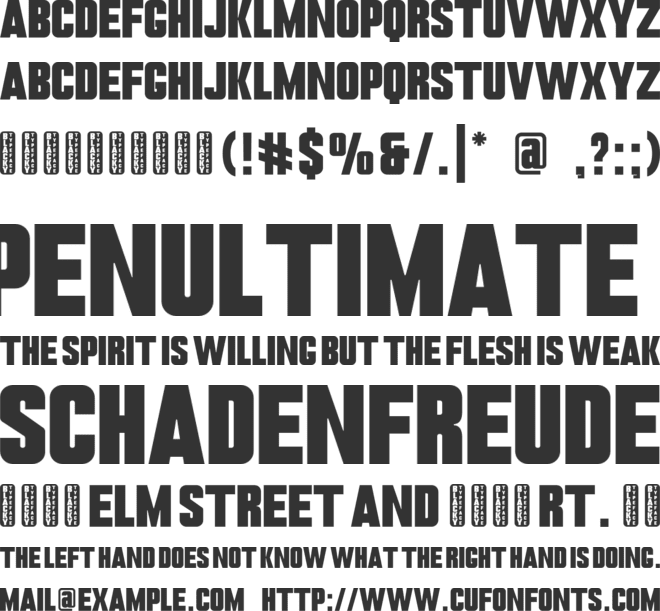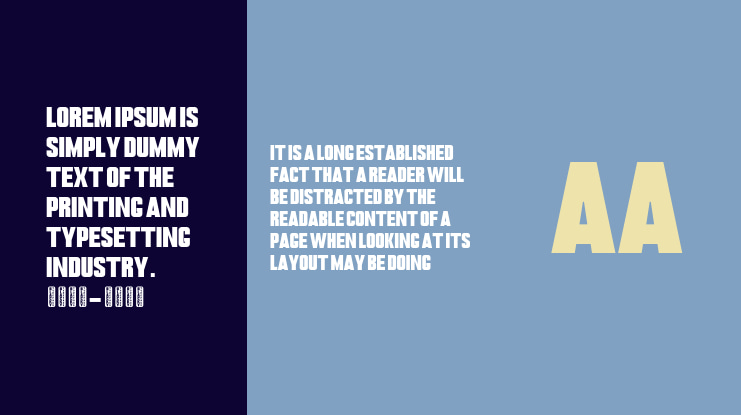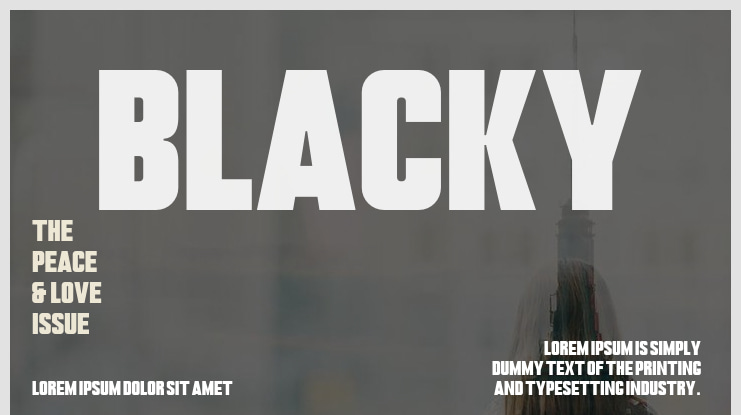
Blacky Font
Afdalul ZIkri
Blacky is a powerful and elegant display typeface. Inspired by design styles that are currently trending, and this is the answer to the design ideas that you will apply in this modern era, with a thick and strong style in each letter of the Blacky font as it is specialized in the world of design.Blacky has 3 font styles including:RegularSemi RoundedroundedBlacky works great on posters, social media, headlines, titles, large print - and it works on just about anything because it's a San-Serif font.Paypal :  Full : https://trotoart12.gumroad.com/l/mdpzqf?_gl=1*xlxg8q*_ga*MTAxNjgzMjAwOC4xNjY2Njg0ODQ1*_ga_6LJN6D94N6*MTY3Nzk5OTM2My4xNi4xLjE2Nzc5OTk0MjguMC4wLjA.https://www.creativefabrica.com/product/blacky-5/ref/2681488/